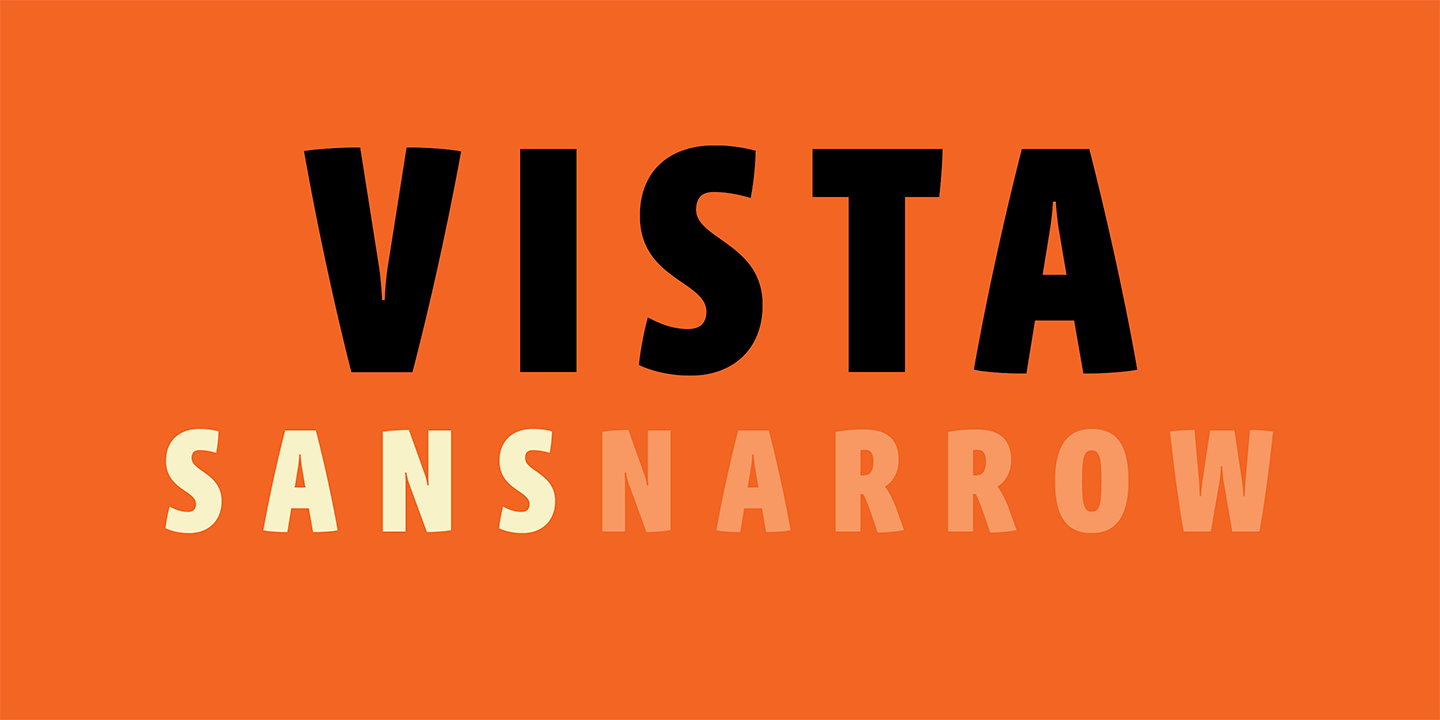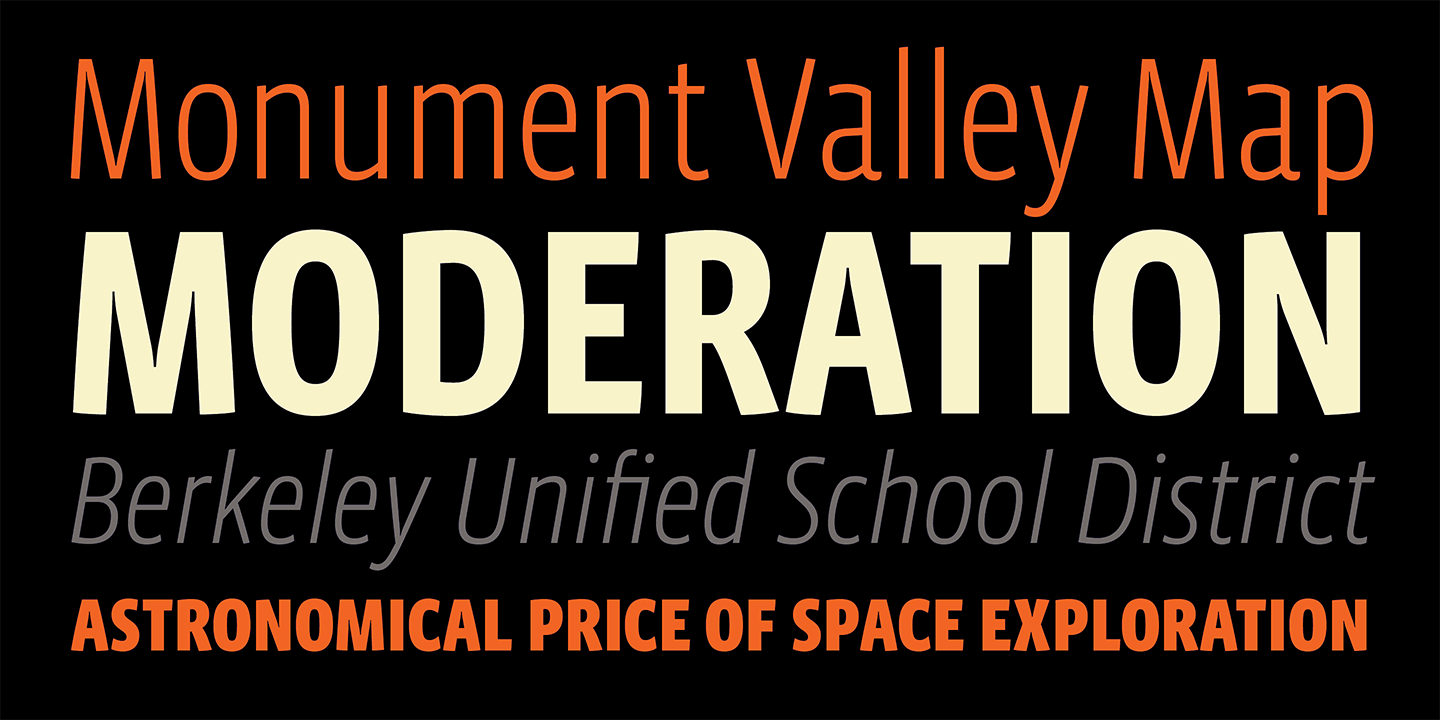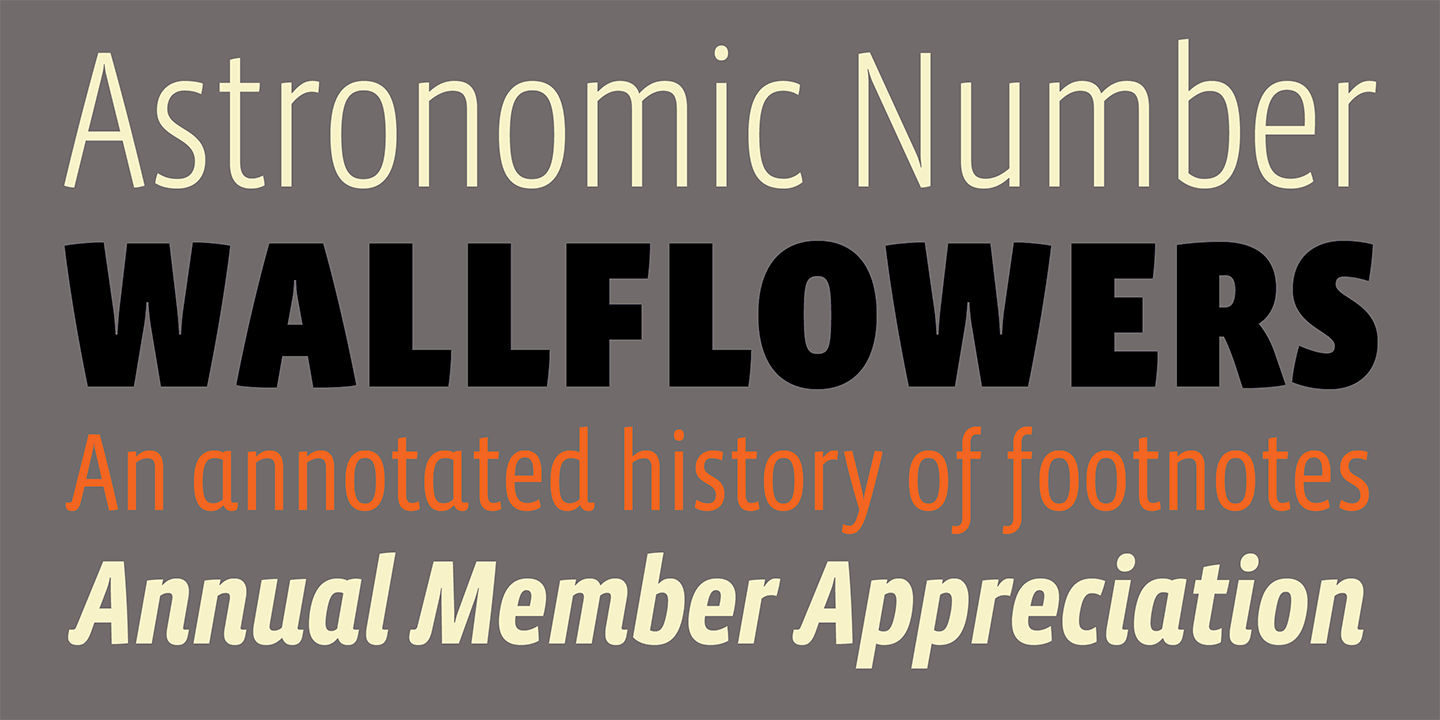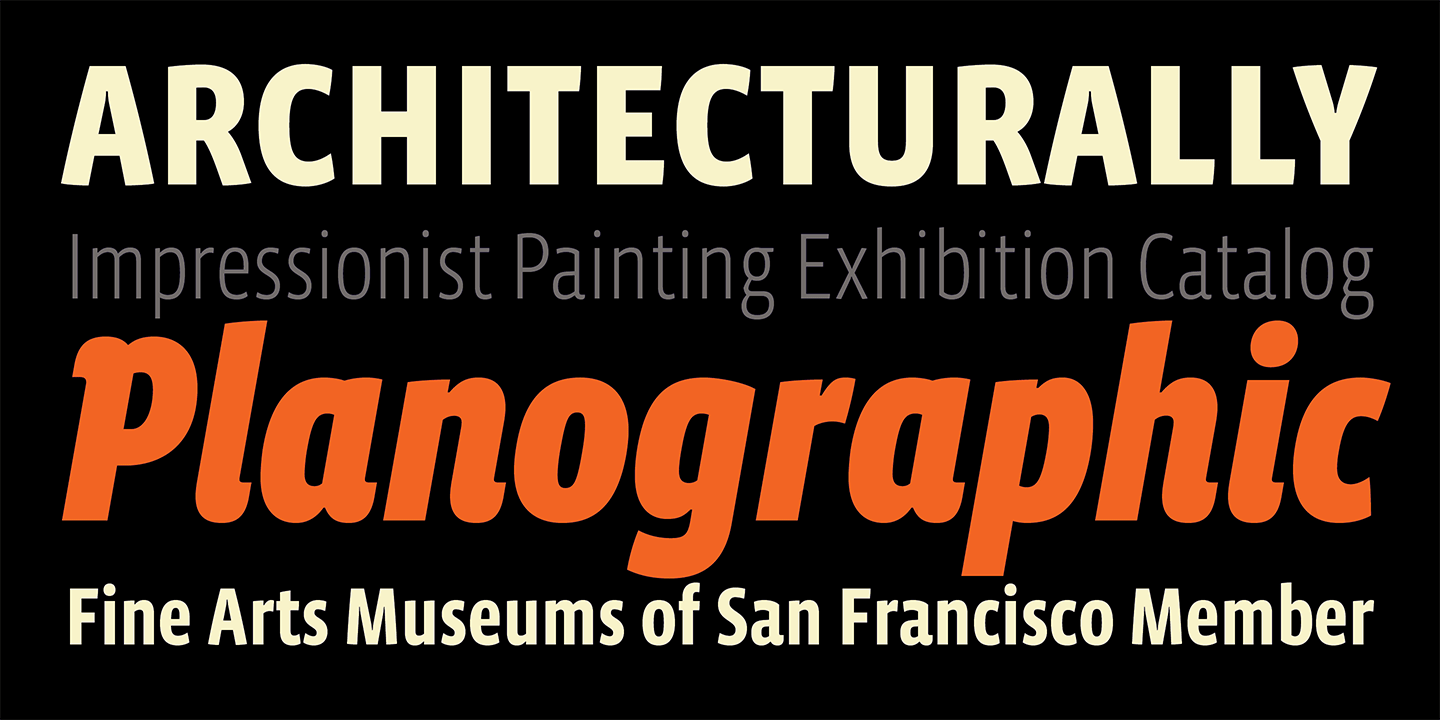
Designed by Xavier Dupré in 2008. More...
The Sans Narrow and Slab versions were added to the Vista family in 2008, extending the family to a total of 108 fonts.